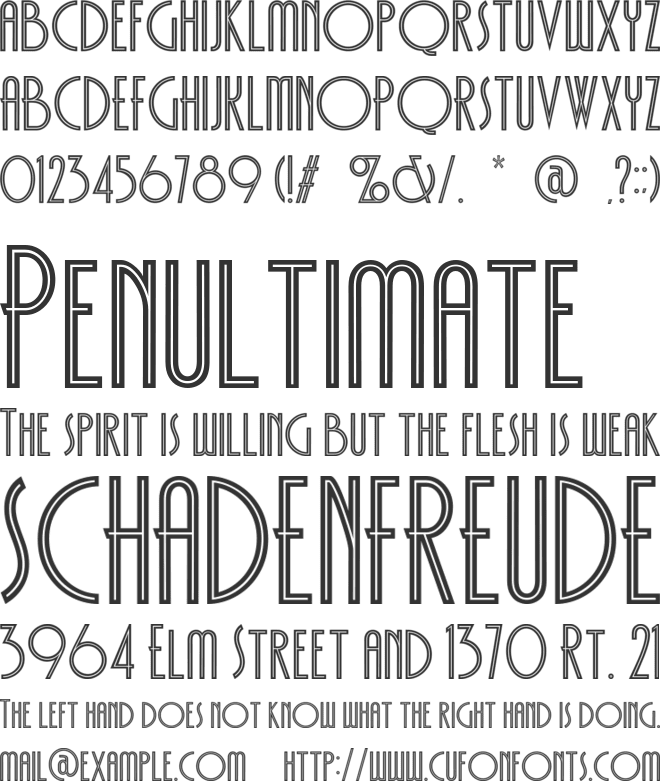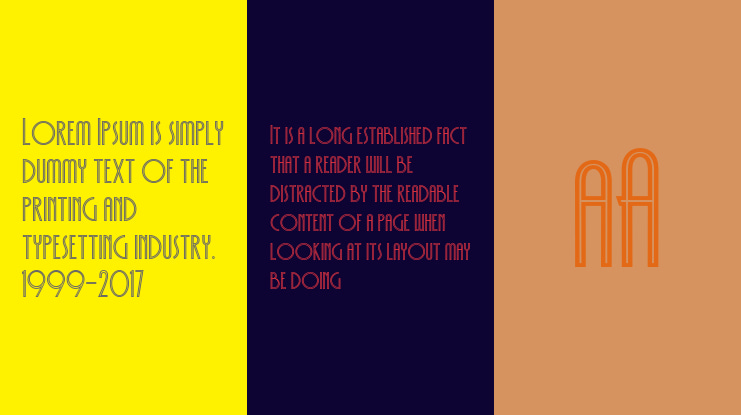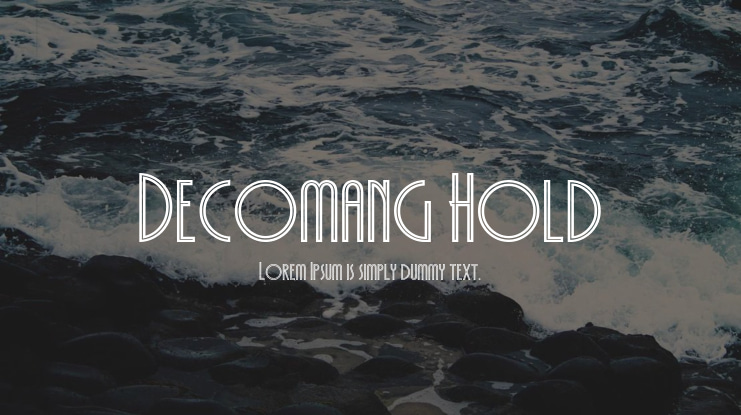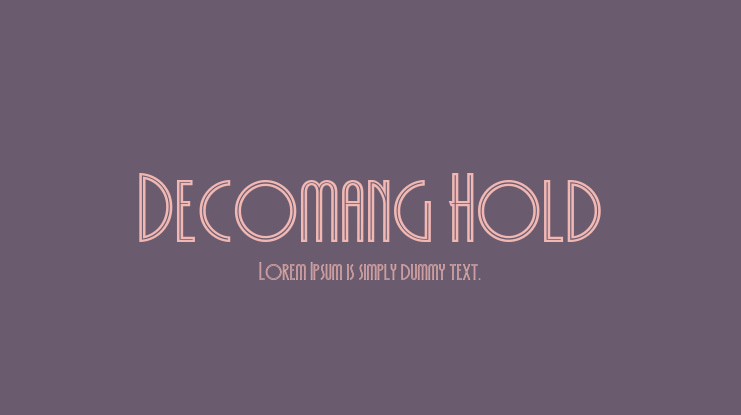
Decomang Hold Font
Kana Widana
Step into the glitz and glamour of the Art Deco era with Decomang, a versatile and elegant typeface that infuses your designs with the bold sophistication of the 1920s. Ideal for branding, invitations, posters, and editorial projects, this font seamlessly combines geometric precision with dynamic flair.